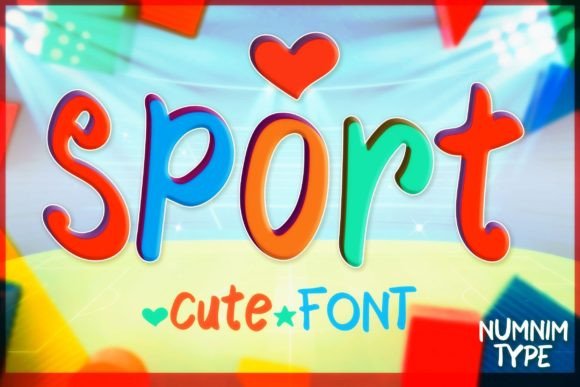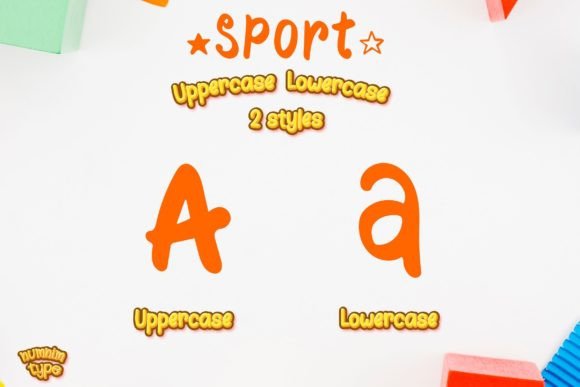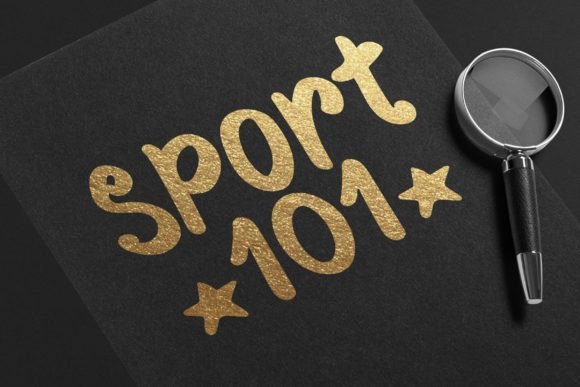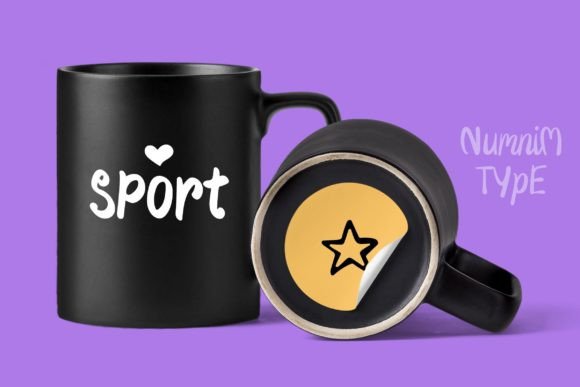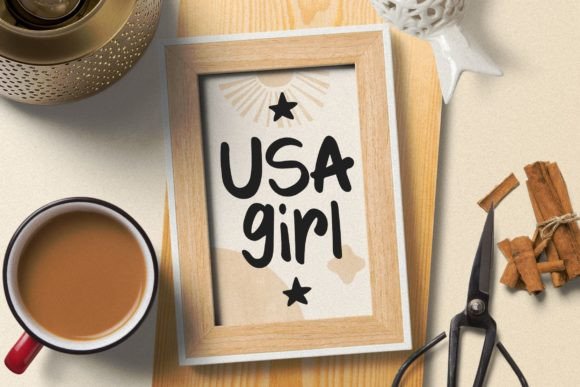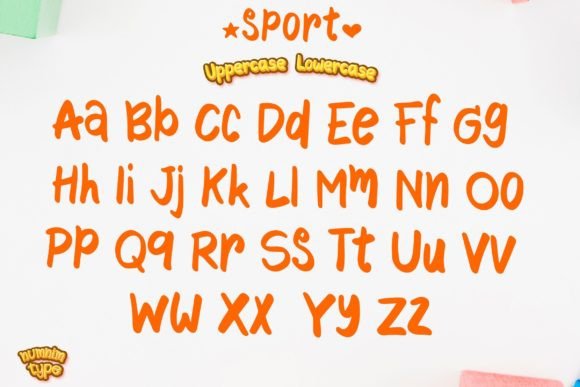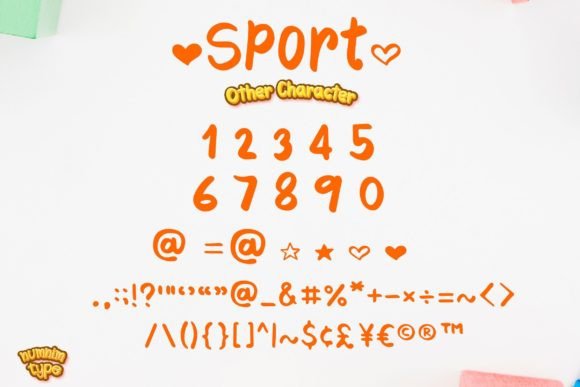
Sport Font
About Sport Font
Sport is a lively and uniquely crafted handwritten kids sports font that adds a cool and playful touch to various design projects. With its fun and energetic characters, this font is the perfect choice for creating a vibrant and engaging visual experience. Whether you’re working on stickers, mugs, t-shirts, ornaments, summer event cards, or other creative endeavors, Sport’s playful aesthetic is sure to make your designs stand out.
The font’s fun and playful characters make it particularly suitable for projects aimed at a younger audience or those seeking a whimsical and lighthearted vibe. The energetic strokes and unique design elements add a sense of dynamism, making Sport an excellent choice for conveying enthusiasm and joy.
Whether applied to stickers, mugs, or t-shirts, Sport injects a sense of liveliness and creativity into your products. The playful nature of the font enhances the overall appeal, making it a great choice for items associated with kids, sports, or summer events.
Sport’s PUA encoding is a valuable feature, allowing easy access to a wide range of glyphs and swashes. This feature enhances the font’s versatility, providing users with the freedom to experiment with different character combinations and decorative elements. The inclusion of swashes adds a delightful and decorative flair to your typography.
In summary, Sport is more than just a font; it’s a design asset that brings a cool and playful vibe to your projects. Whether you’re creating stickers, mugs, t-shirts, or cards for summer events, Sport is the font that infuses a sense of fun and energy into your designs. Let Sport be the handwritten kids sports font that adds a playful and lively touch to your creative endeavors.